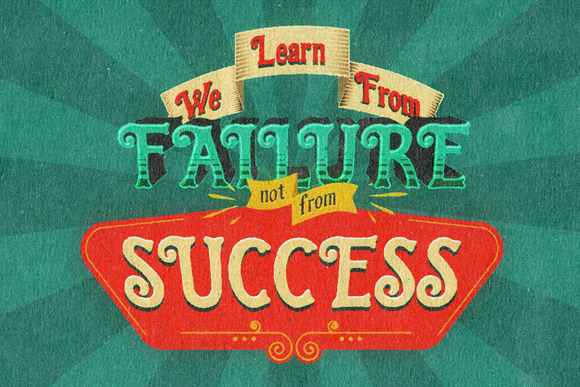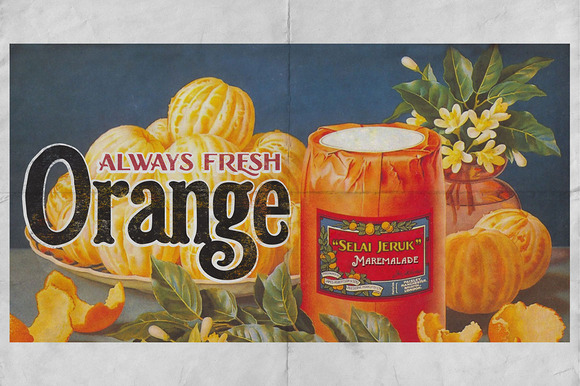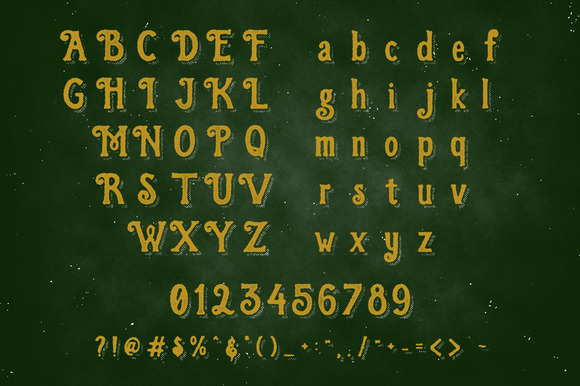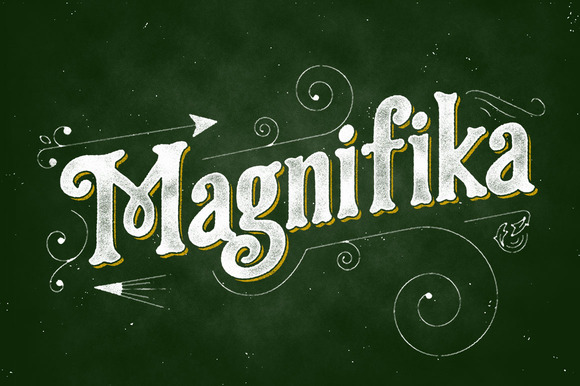
Magnifika Font
Magnifika inspired by the vintage lettering with lowercase and also a bit taste of victorian. This fonts especially for the display, but it’s still good when you use for long wording.
Magnifika best use for the Posters, Headlines, Logos and with vintage design. in the Display I also use my other fonts Grandesa http://crtv.mk/rjVm and Marema http://crtv.mk/cq0G